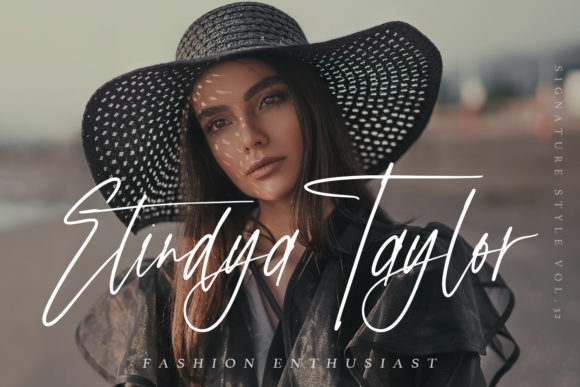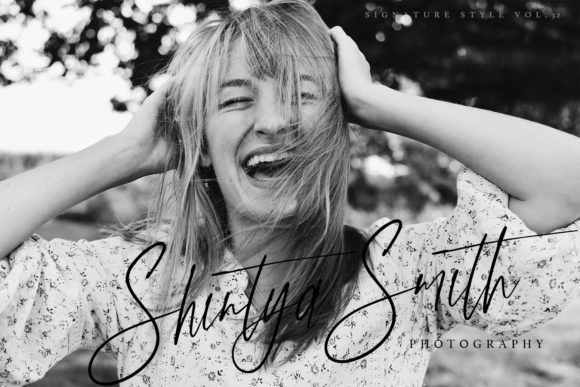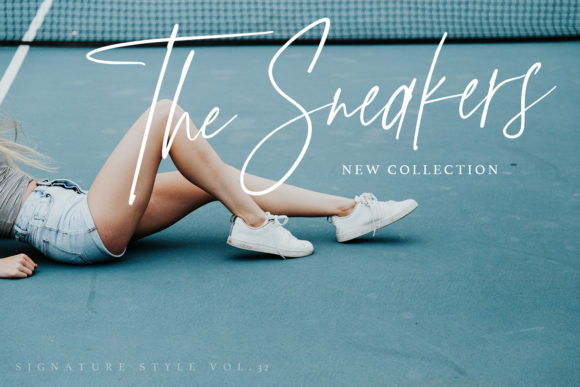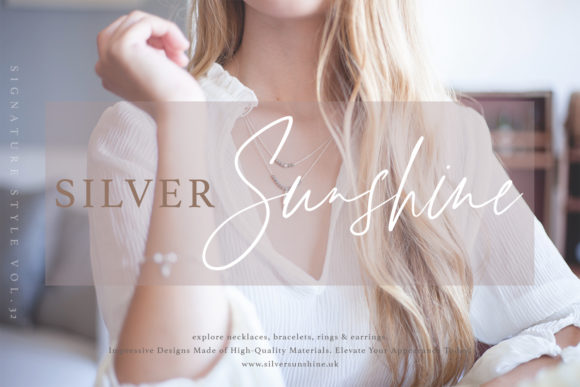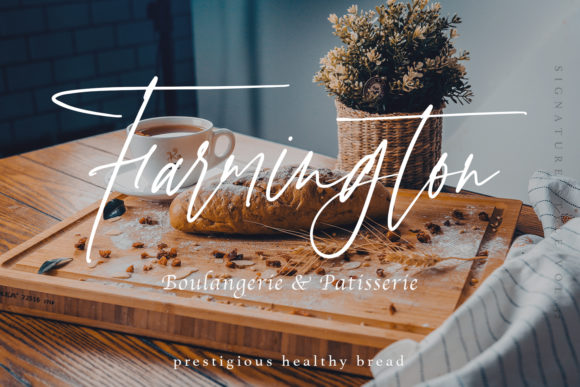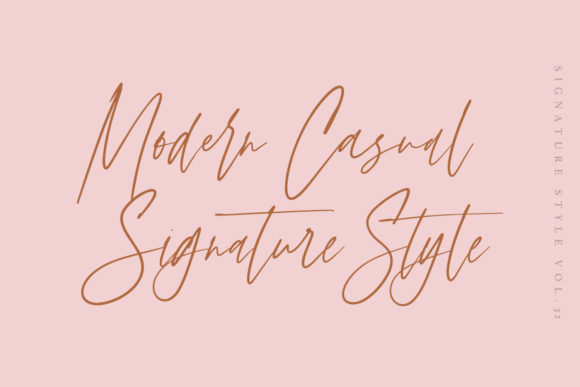
Introducing Anxiety Font: The Timeless Handwritten Font for Stunning Designs
Are you a designer or crafter looking for a font that can add a touch of elegance and sophistication to your designs? Look no further than Anxiety Font, a lovely and timeless handwritten font that is perfect for creating eye-catching logos, branding, and quotes.
What Makes Anxiety Font So Special?
Anxiety Font is a unique and beautiful handwritten font that is designed to make your designs come alive. Every letter has a distinctive and elegant touch that sets it apart from other fonts. The font’s timeless design ensures that it will remain stylish and relevant for years to come, making it a great investment for designers and crafters.
Anxiety Font is the perfect choice for creating stunning logos, branding, and quotes. Its elegant and sophisticated design makes it ideal for businesses and individuals looking to create a professional and stylish image. Whether you’re designing a logo for a new business or creating a quote for social media, Anxiety Font is the perfect choice.
Unique and Beautiful Touch
One of the standout features of Anxiety Font is its unique and beautiful touch. Every letter is carefully crafted to ensure that it has a distinctive and elegant feel that will make your designs stand out. The font’s unique touch is perfect for designers and crafters who want to add a personal touch to their designs.
Why Choose Anxiety Font?
There are many reasons why Anxiety Font is the perfect choice for designers and crafters. Here are just a few:
- Timeless design: Anxiety Font has a timeless design that will remain stylish and relevant for years to come.
- Unique and beautiful touch: Every letter has a distinctive and elegant touch that sets it apart from other fonts.
- Perfect for logos, branding, and quotes: Anxiety Font is ideal for creating stunning logos, branding, and quotes.
- Elegant and sophisticated: The font’s elegant and sophisticated design makes it perfect for businesses and individuals looking to create a professional and stylish image.
How to Use Anxiety Font
Anxiety Font is easy to use and can be incorporated into a variety of design projects. Here are a few ways you can use Anxiety Font:
- Logos: Use Anxiety Font to create stunning logos for businesses and individuals.
- Branding: Use Anxiety Font to create a consistent and stylish brand image.
- Quotes: Use Anxiety Font to create eye-catching quotes for social media and other design projects.
- Stationery: Use Anxiety Font to create stylish stationery, including invitations, greeting cards, and more.
Tips for Getting the Most Out of Anxiety Font
Here are a few tips for getting the most out of Anxiety Font:
- Experiment with different colors: Anxiety Font looks great in a variety of colors, so don’t be afraid to experiment and find the perfect color for your design.
- Use it with other fonts: Anxiety Font can be paired with other fonts to create a unique and stylish design.
- Pay attention to spacing: Make sure to pay attention to spacing when using Anxiety Font to ensure that your design looks elegant and sophisticated.
Anxiety Font is a timeless and elegant handwritten font that is perfect for designers and crafters looking to add a touch of sophistication to their designs. With its unique and beautiful touch, Anxiety Font is ideal for creating stunning logos, branding, and quotes. Whether you’re a professional designer or a crafter, Anxiety Font is a great choice for any design project.